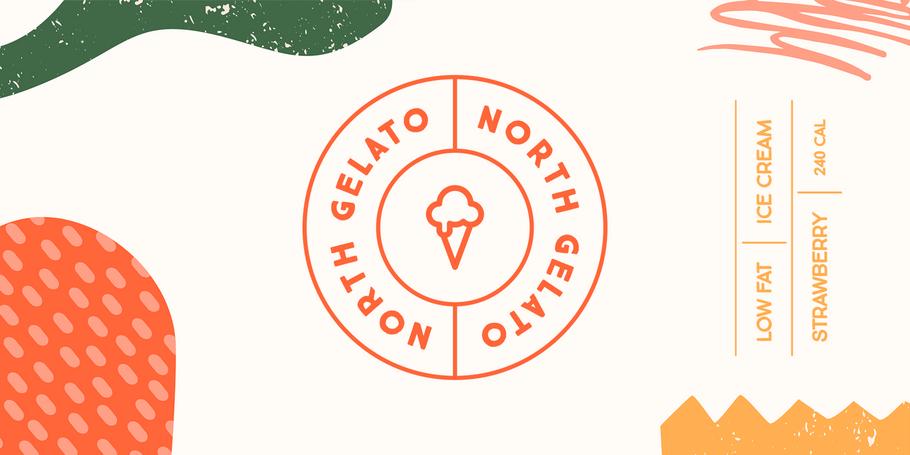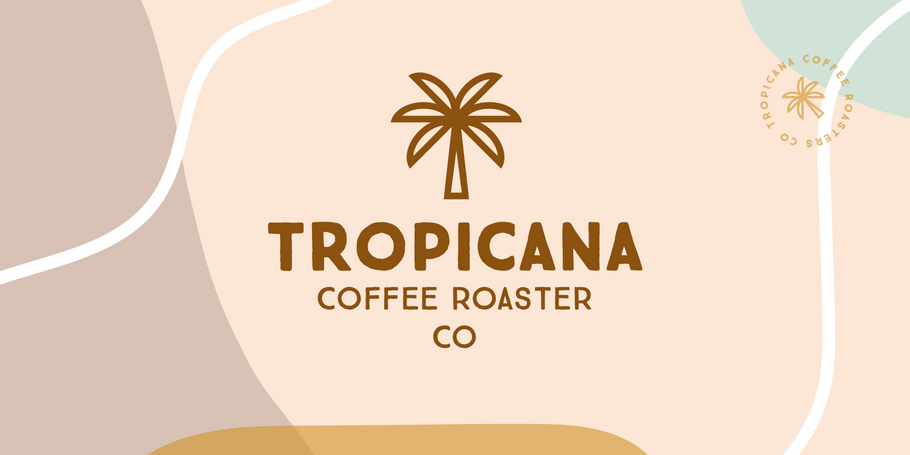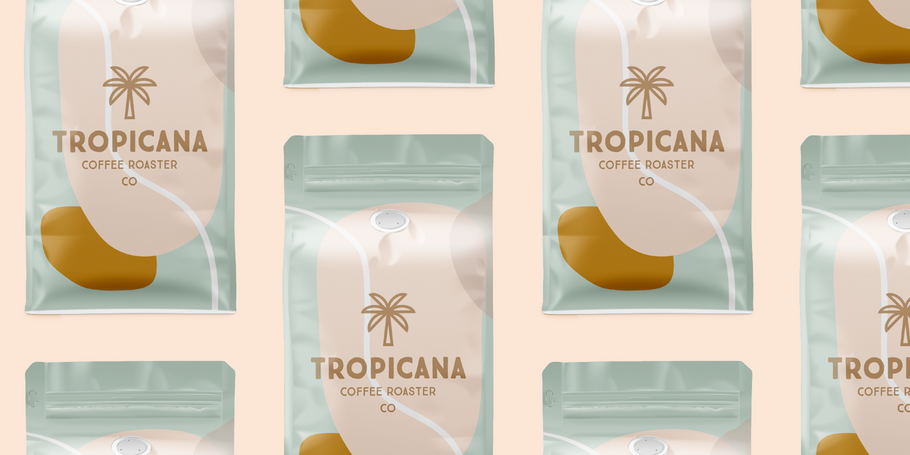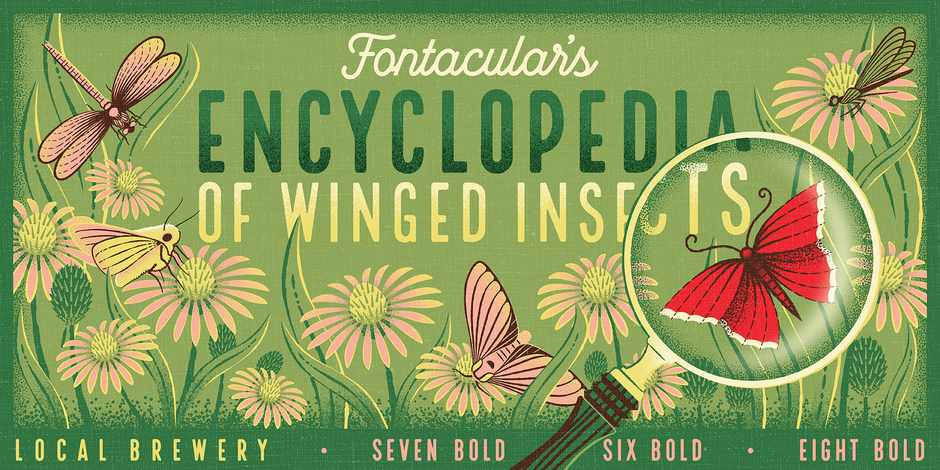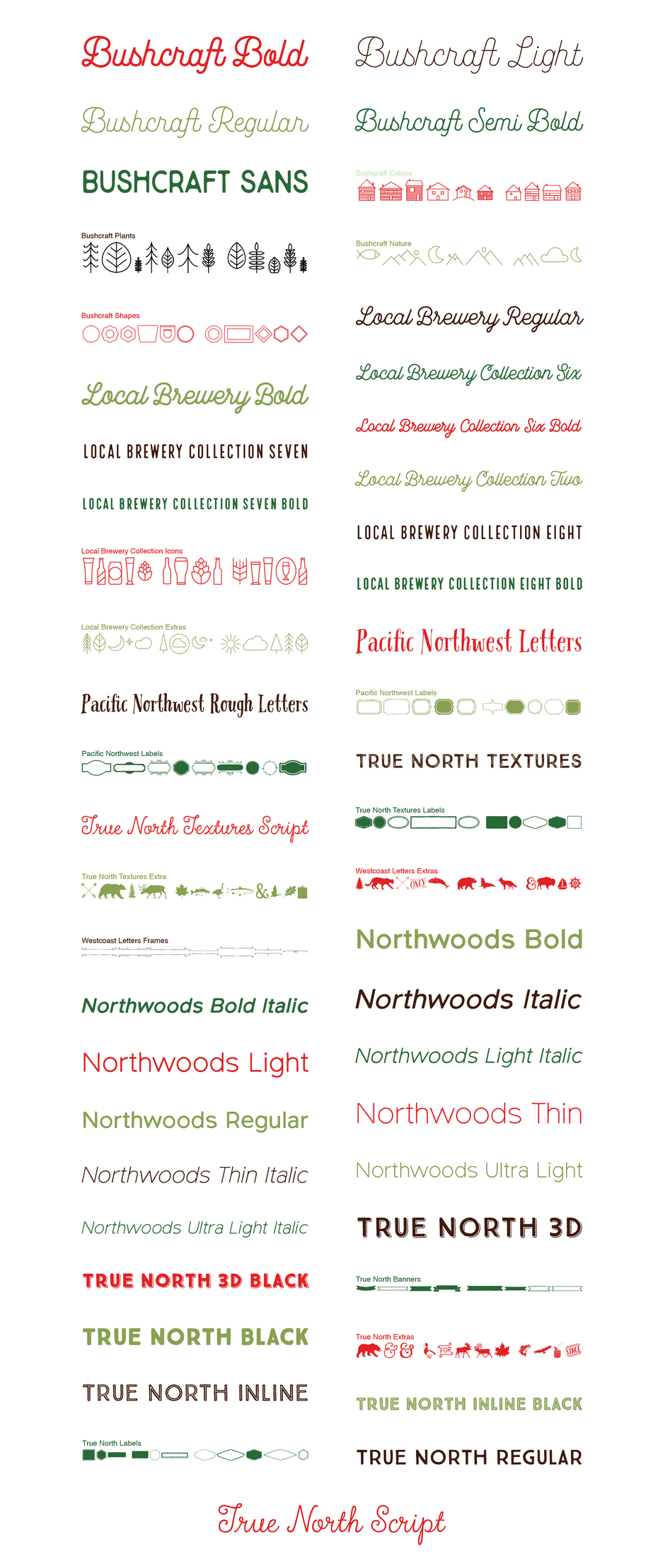
Outdoorsy Font Bundle - Cultivated Mind
Cultivated Mind’s Outdoorsy Font Bundle includes a variety of bestselling scripts, serifs, sans serifs and artwork that you can easily combine together to create amazing rustic designs.
- Artwork includes labels, frames, shapes, animals, trees, plants, leaves, clouds, cabins, mountains and beer icons.
- All fonts and artwork are HAND-PAINTED & HAND-DRAWN.
- Use the fonts and artwork for packaging, book covers, logos and branding.
Designed by: Tierra Connor